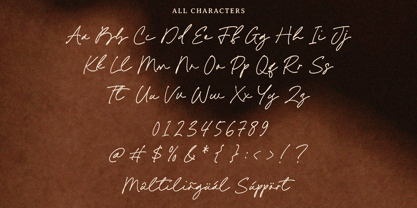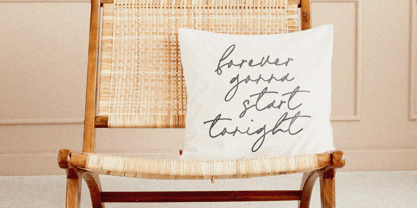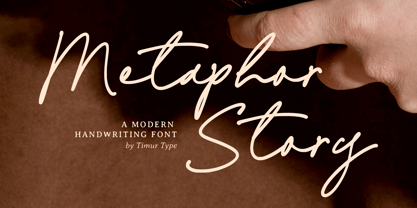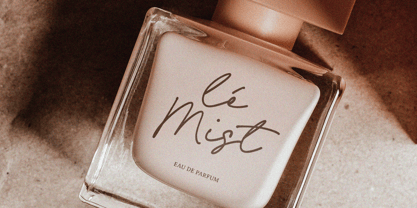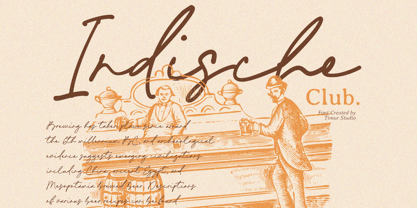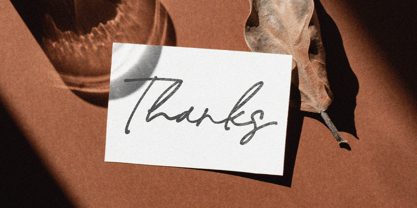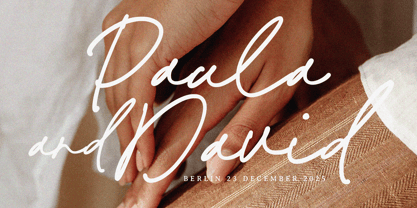
Metaphor Story
by Timurtype
The Metaphor Story Font Family was designed by Wara Sigit Tri Pamungkas and published by Timurtype. Metaphor Story contains 1 styles. More about this family
Metaphor Story is a Modern Handwriting Font
This font is a is a sleek, modern handwriting font that blends elegance with a touch. Its flowing, natural strokes mimic the charm of handwritten notes while maintaining clarity and sophistication, making it ideal for invitations, branding, and creative projects. Perfect for adding warmth and character to any design.
Metaphor Story Font also supports multilingualism